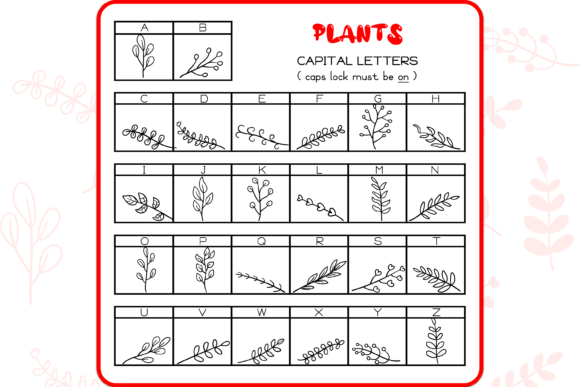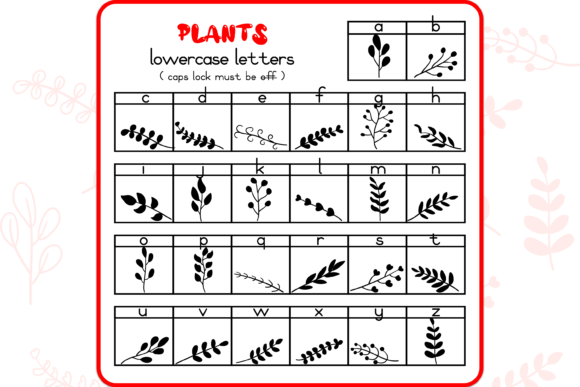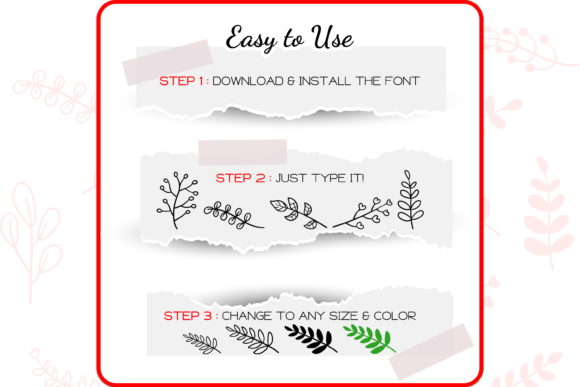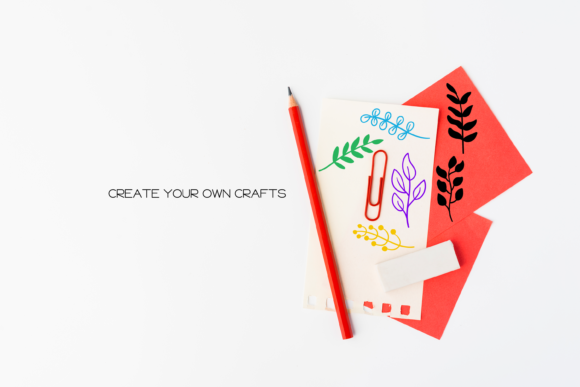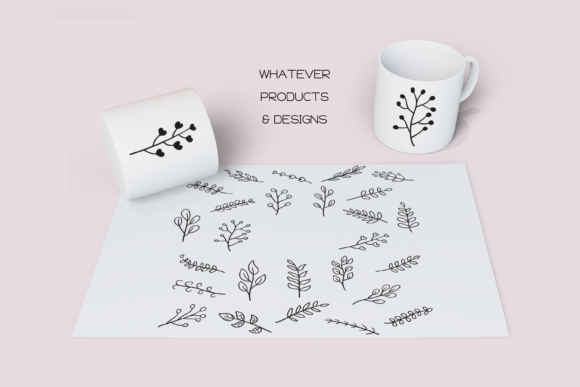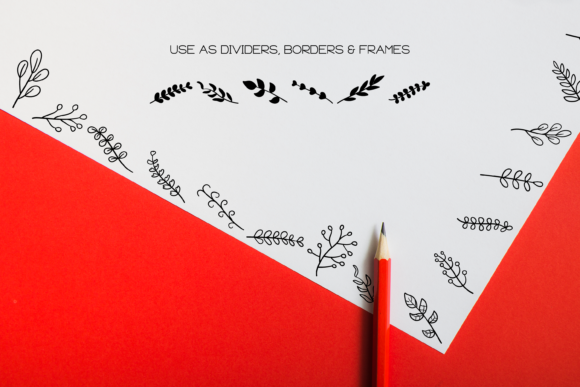
Introduction to Plants Dingbats Font
Plants is a unique and cute dingbats font containing 52 hand-drawn doodles of different plants and leaves.
Use this as borders, dividers, and frames or add it to your creative ideas and make your designs outstanding .
Key Features of Plants Dingbats Font